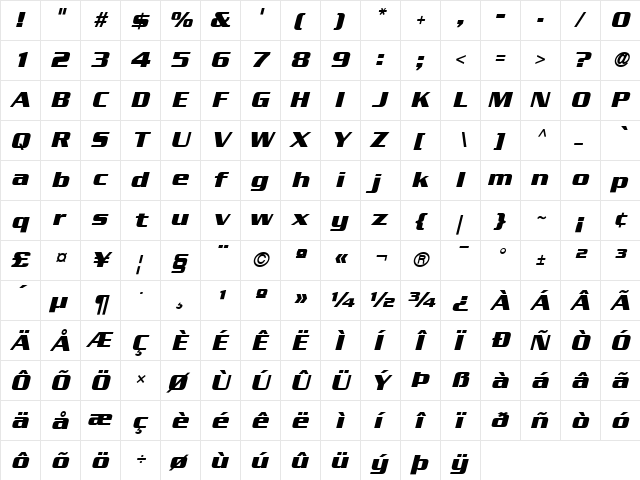
SerpentineSansICG Bold Italic Font Preview
SerpentineSansICG Bold Italic
SerpentineSansICG Bold Italic Font Details
Design Context for SerpentineSansICG Typeface
SerpentineSansICG is a composed and adaptable typeface that performs quietly and consistently across a wide range of design contexts. Its italic angle brings a sense of urgency and motion to the letterforms. Its bold stroke weight gives it real presence on the page.
Pro Tip: Try SerpentineSansICG for annotation and caption copy alongside an upright companion — the contrast in angle creates a dynamic but ordered typographic system.